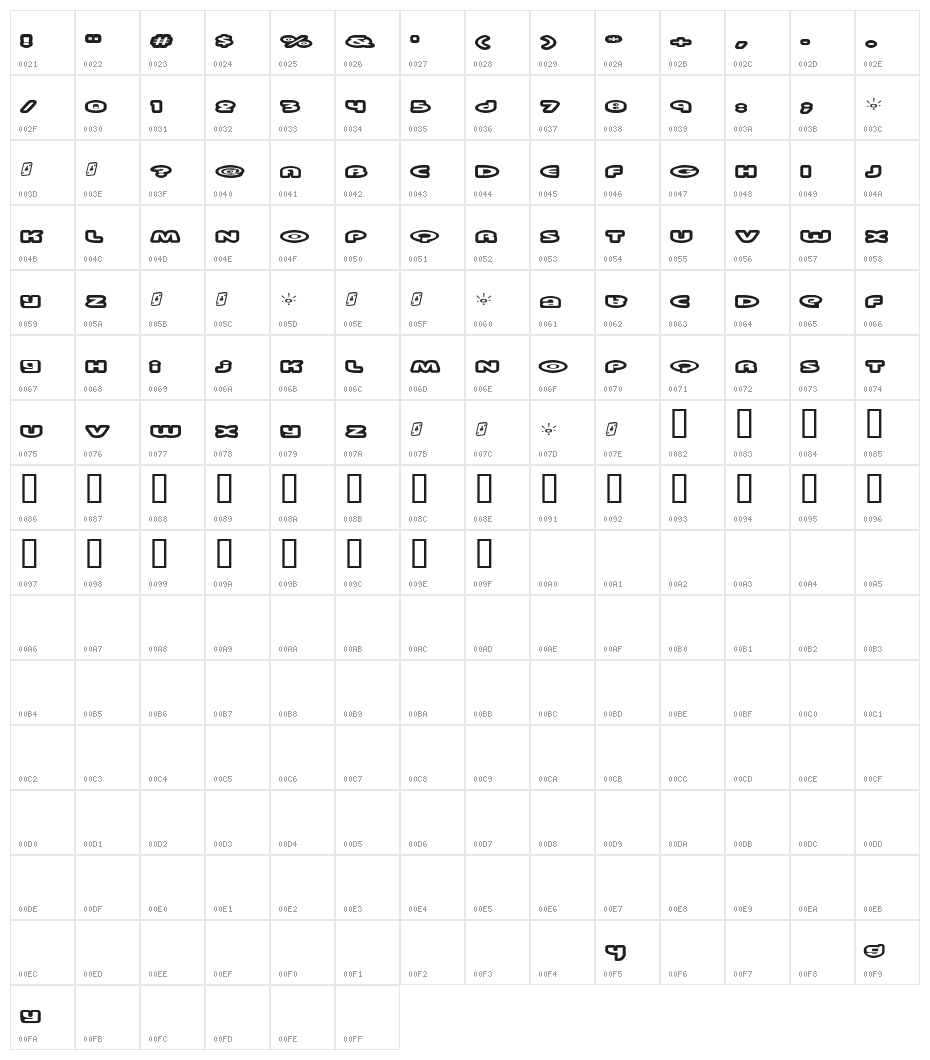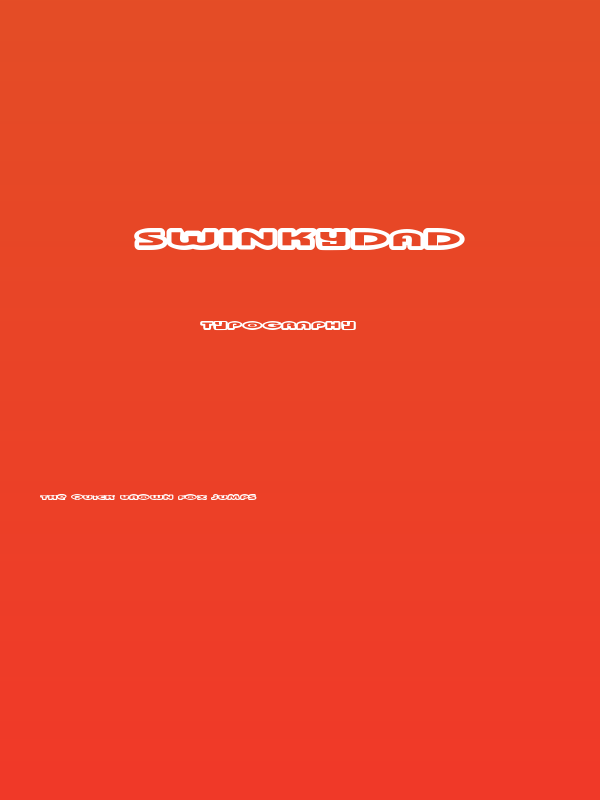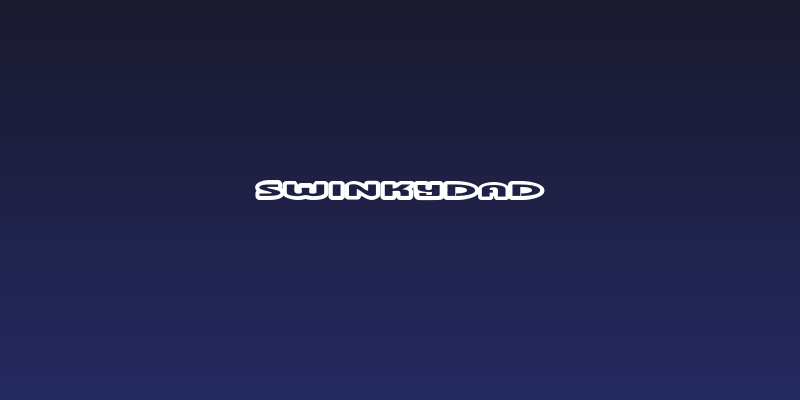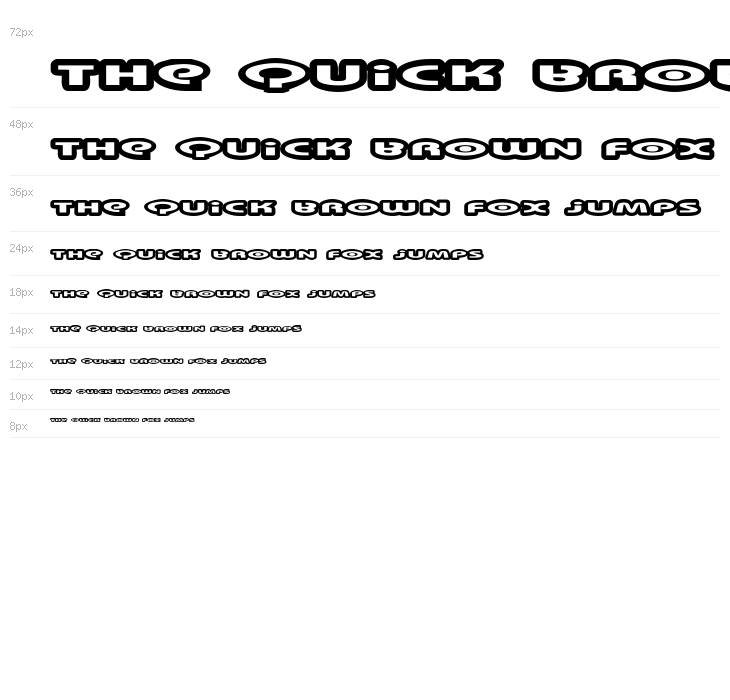
Swinkydad Font
Swinkydad Description
This font features a bold, rounded style with a playful and modern aesthetic. The characters are outlined, creating a bubble-like appearance that adds a sense of depth and dimension. The uppercase and lowercase letters maintain a consistent style, with smooth curves and a uniform thickness throughout. The numbers and special characters follow the same design principles, ensuring a cohesive look across all elements. This font's unique style makes it stand out, offering a fun and engaging visual experience.